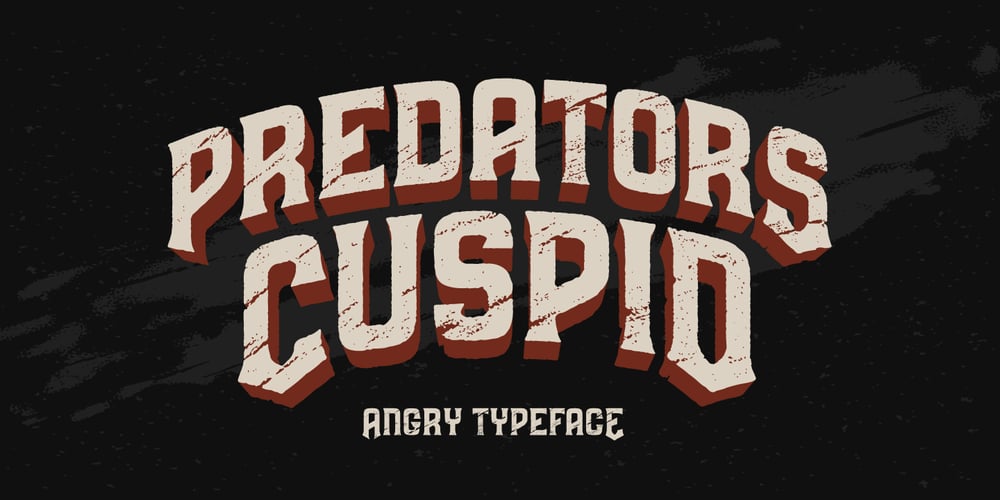
Predators Cuspid Font Family was designed by Gleb Guralnyk and published by Gleb Guralnyk. Predators Cuspid contains 1 styles and family package options. A vintage angry looking typeface named “Predators Cuspid”. It has a grunge scratched texture effect. Protruding “fangs” can be achieved by using a capital letters. Thank you and have a nice day!